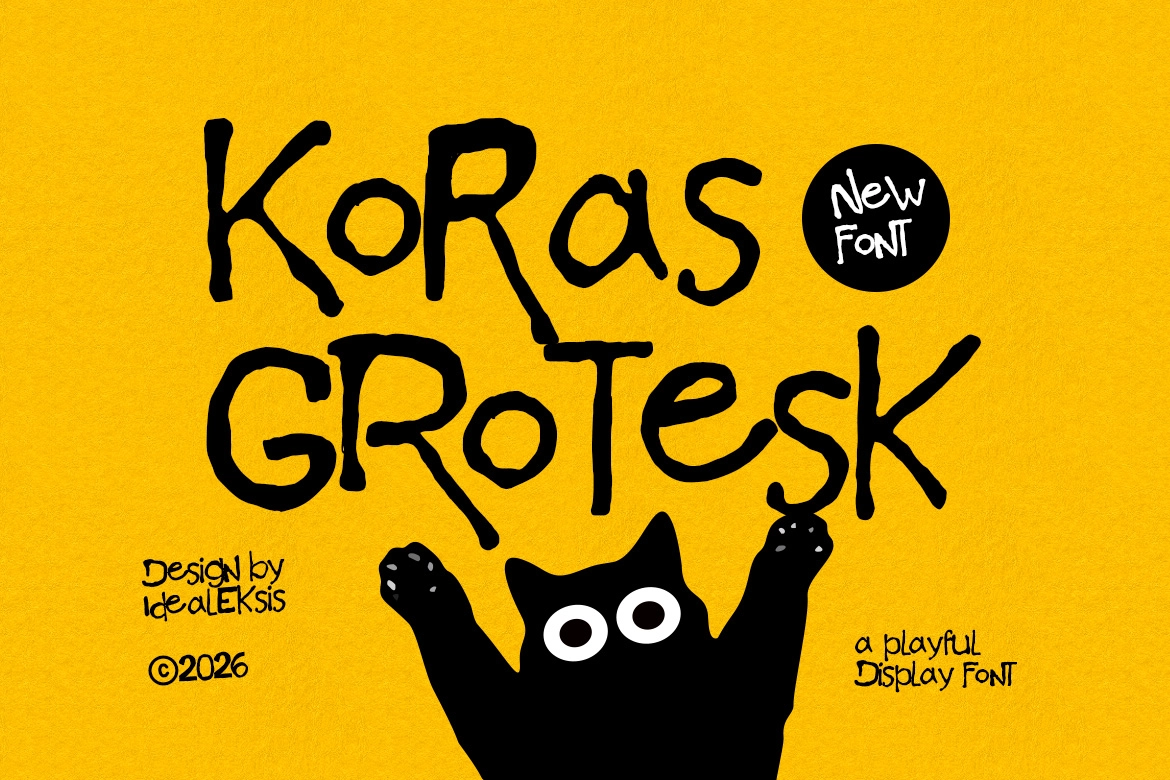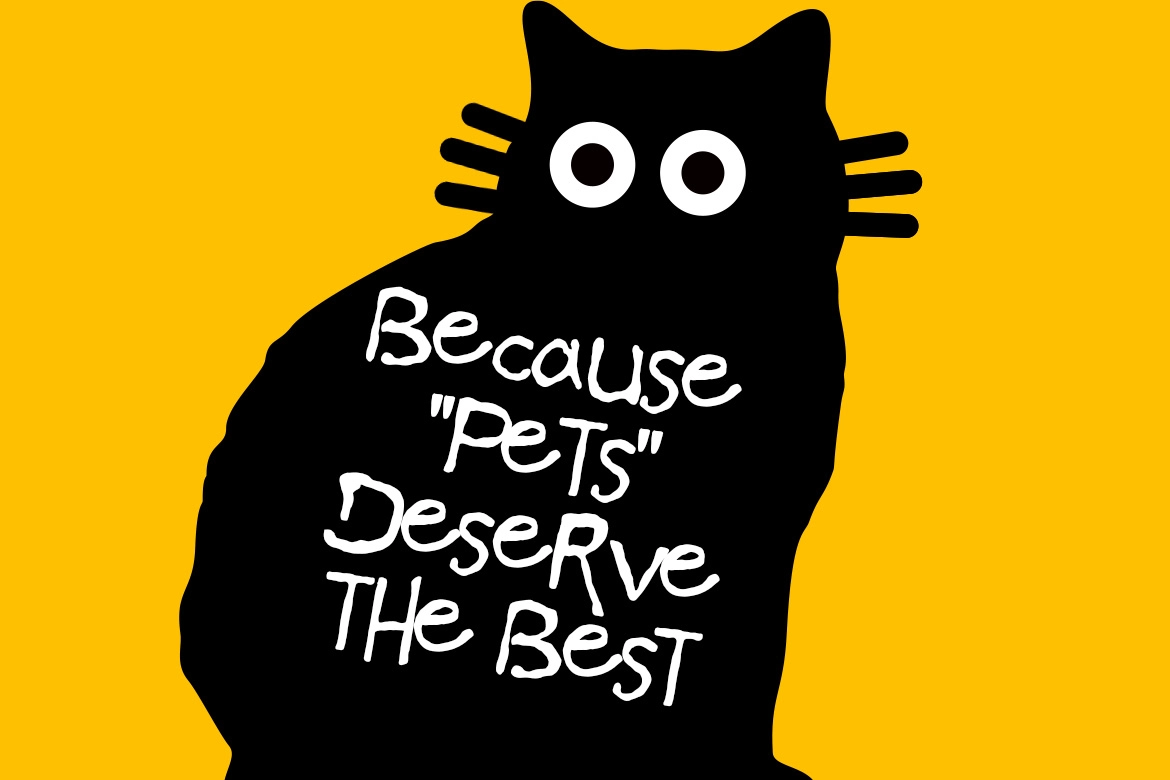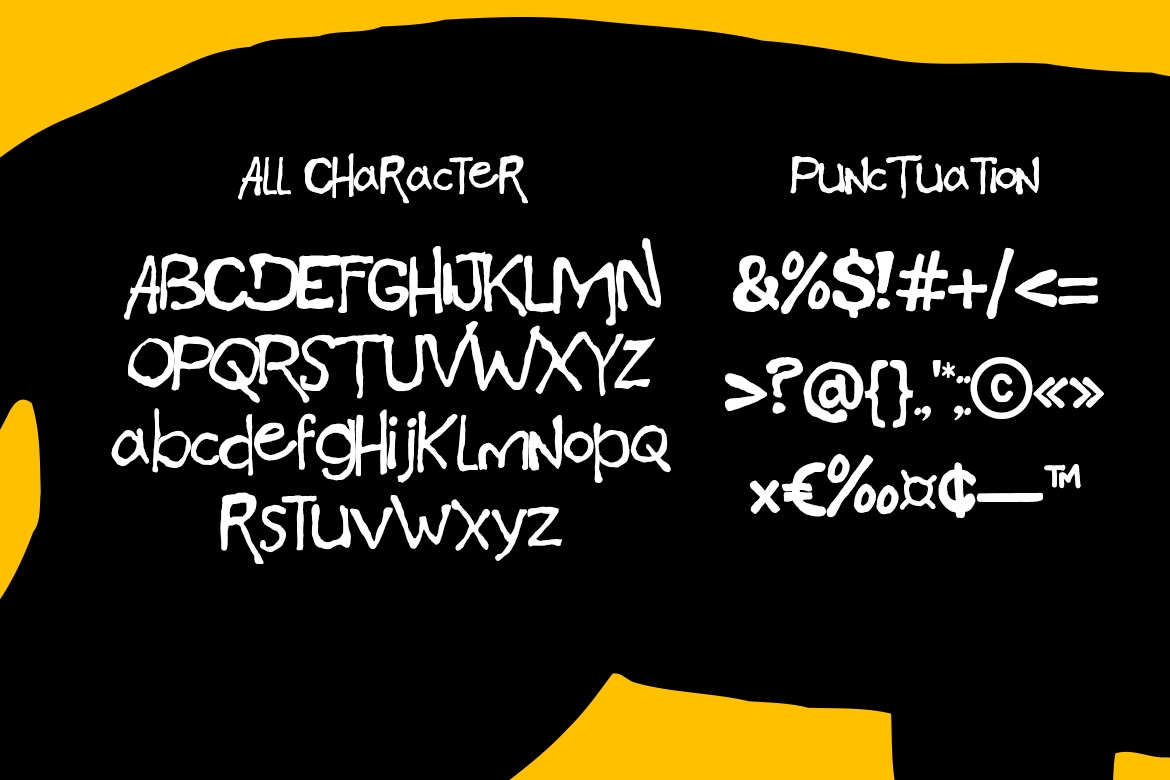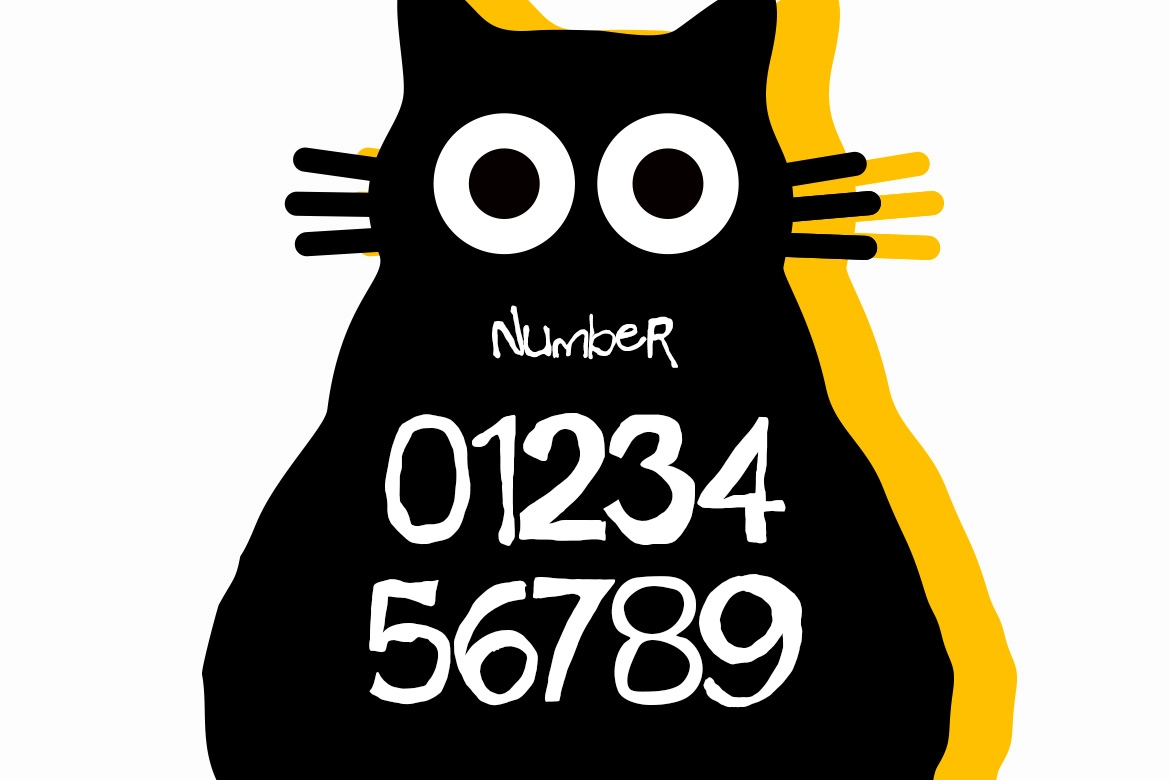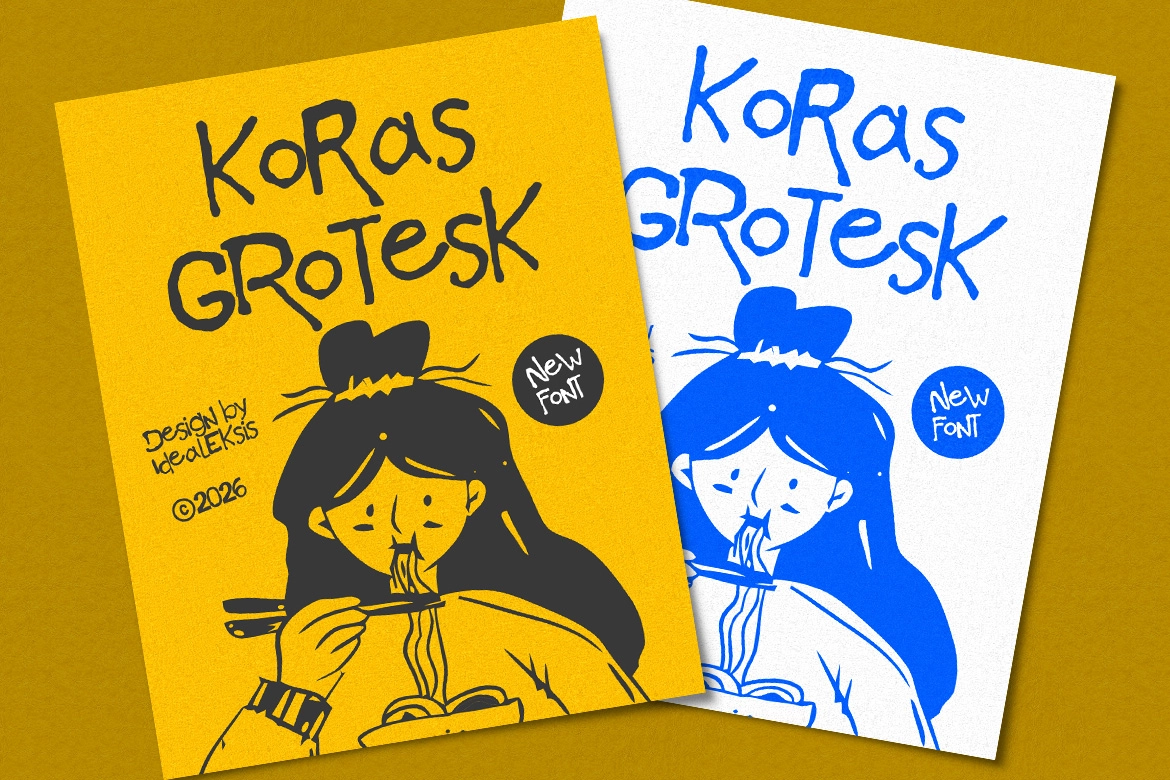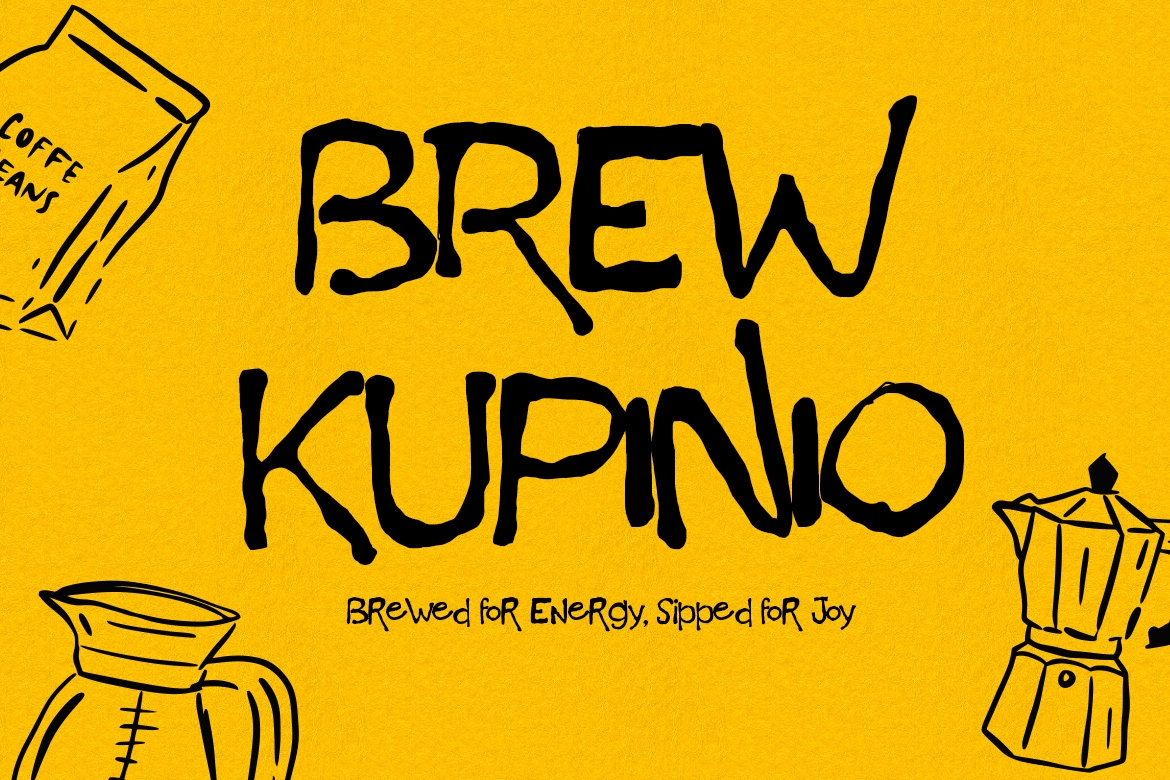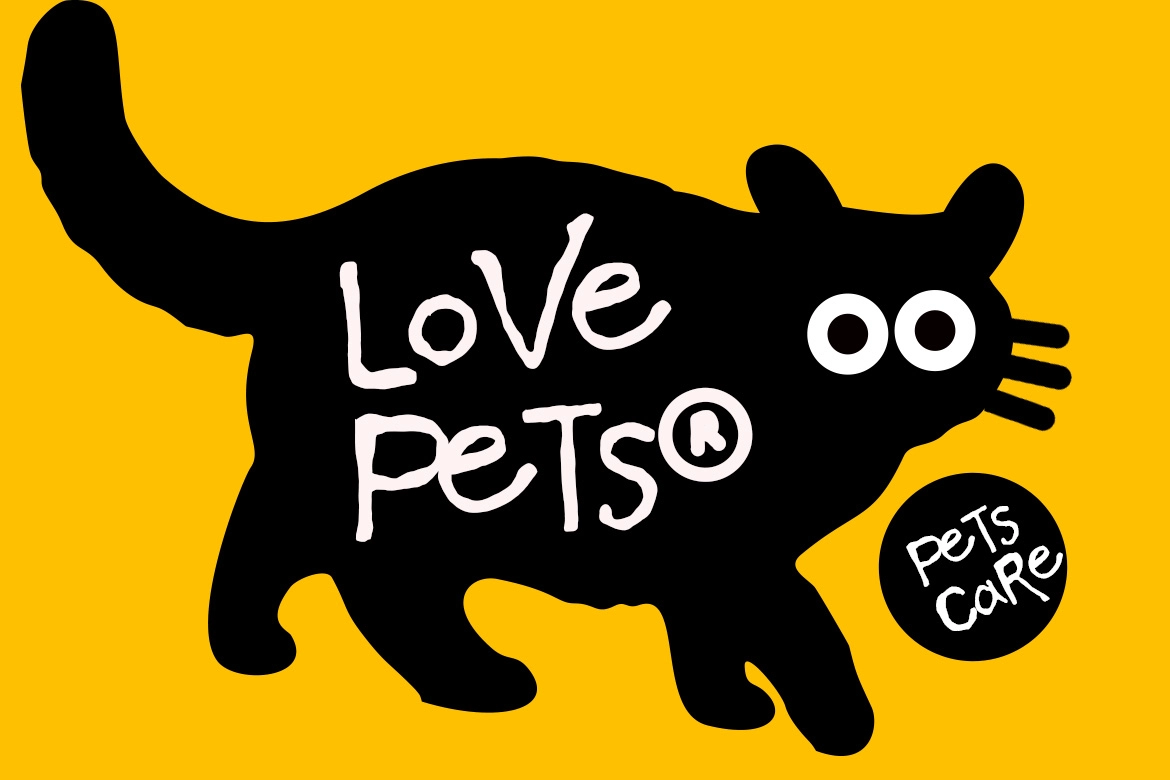
Koras Grotesk - Playful Hand-Drawn Display Font
Koras Grotesk
Koras Grotesk – Playful Hand-Drawn Display Font is a lively display typeface with a whimsical hand-drawn character. Its irregular stroke weights, uneven baseline, and jagged edges create a spontaneous and organic look that feels raw, expressive, and full of personality. The playful structure gives every word a dynamic rhythm that instantly adds warmth and charm to any design.
Perfect for children's books, posters, playful branding, packaging, and creative editorial layouts, Koras Grotesk brings an energetic handcrafted style that makes typography feel friendly, fun, and visually engaging.
- Ideal for Children’s Books, Posters & Playful Branding